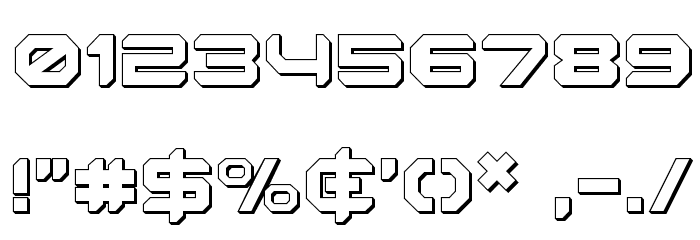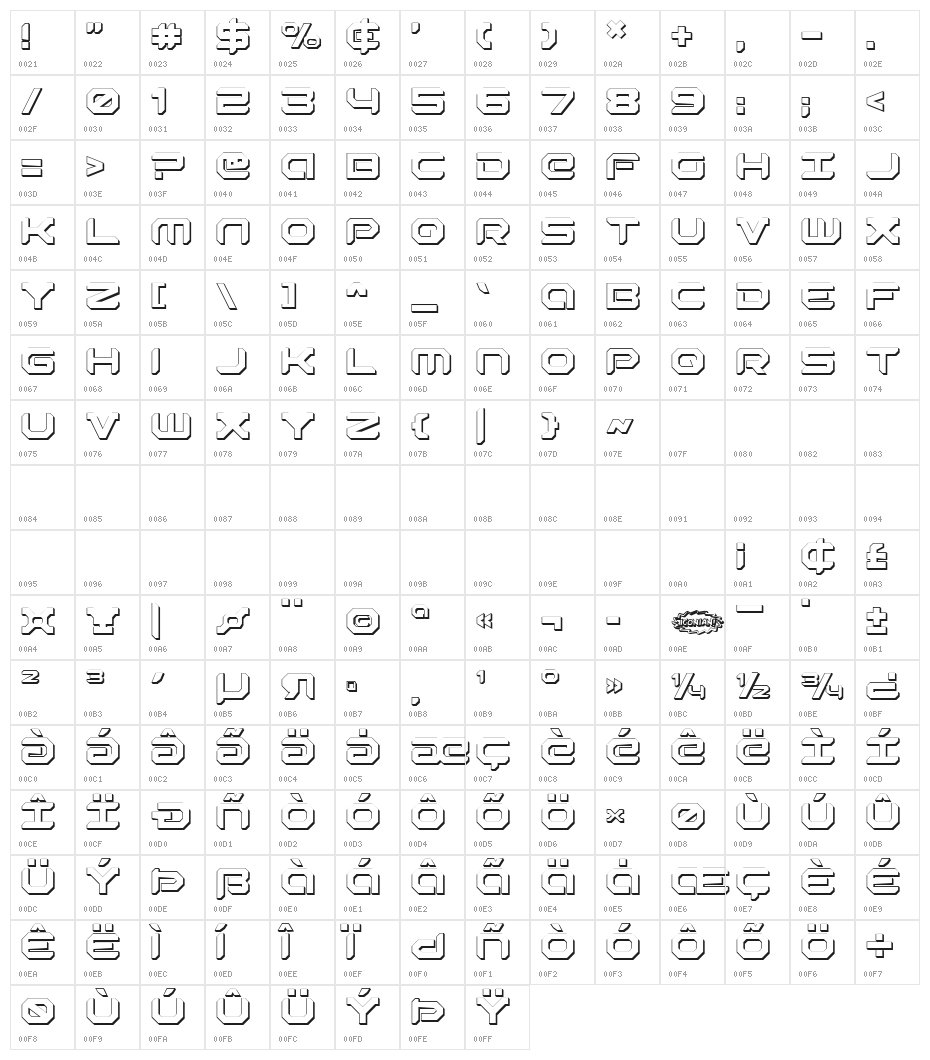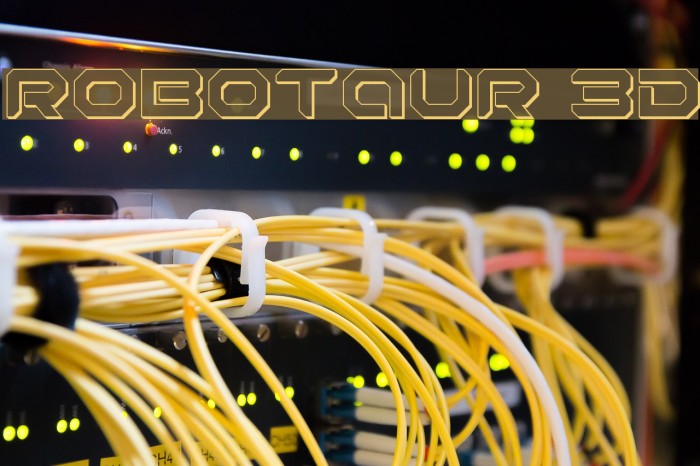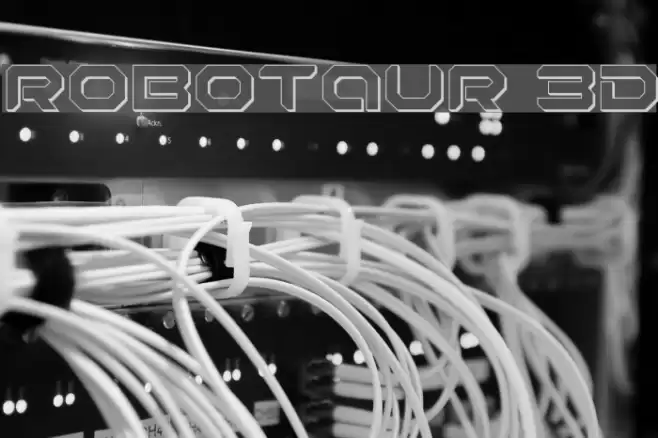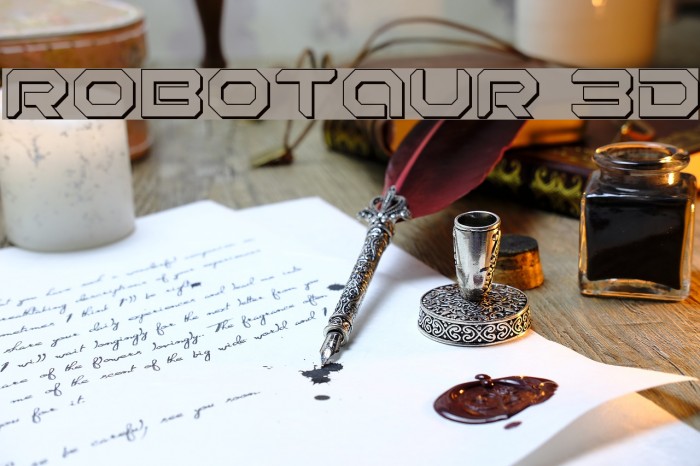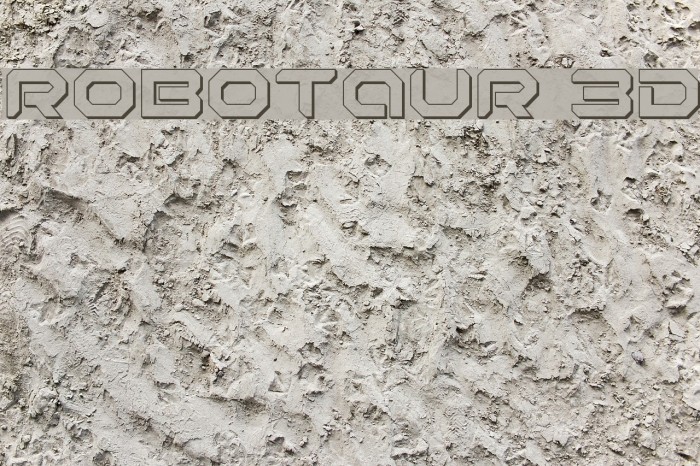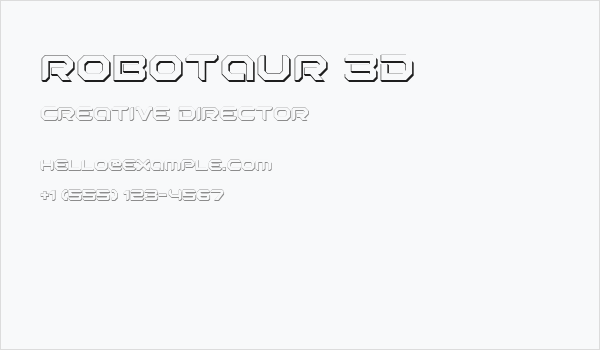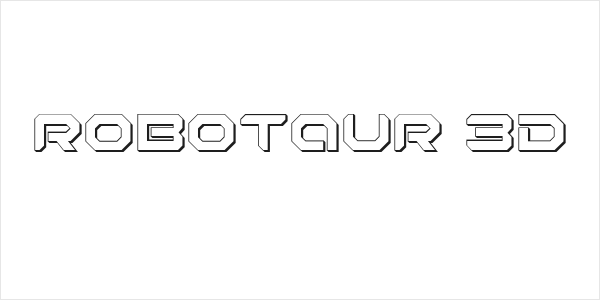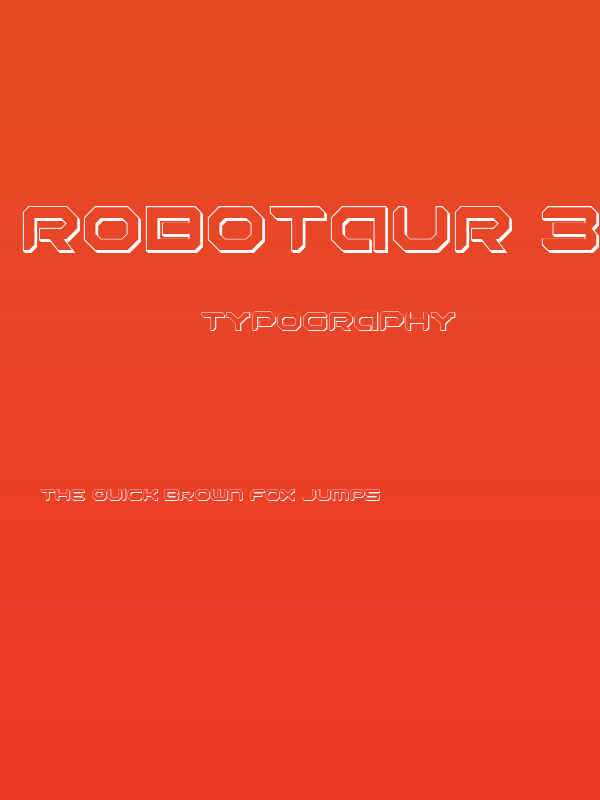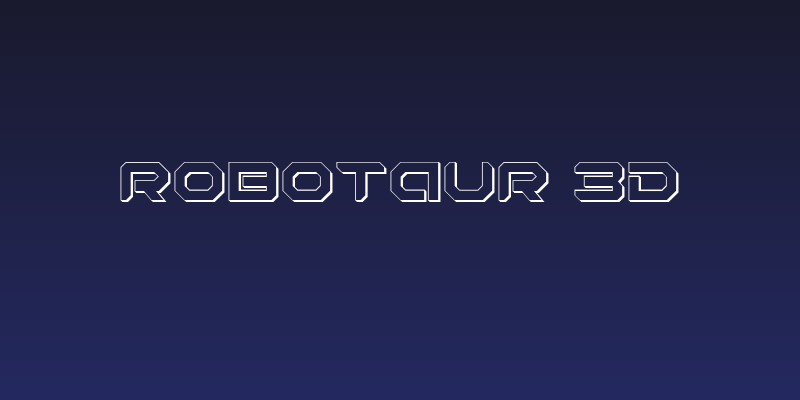
Robotaur 3D Font
Robotaur 3D Description
This font features a futuristic, geometric design with a 3D effect that gives each character a sense of depth and dimension. The letters are constructed with bold, angular lines and sharp edges, creating a modern and tech-inspired aesthetic. The hollow interior of each character enhances the 3D illusion, making it ideal for projects that require a standout, eye-catching typeface. The uniformity in design across uppercase, lowercase, numbers, and special characters ensures consistency and readability.
| Proposed Projects | Ideal for sci-fi themed posters, video game titles, tech company logos, and futuristic branding materials. |